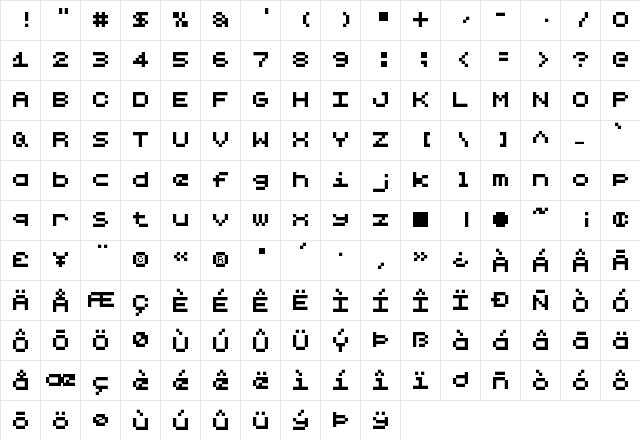
Lilliput Steps Regular
Design Context for Lilliput Steps Typeface
Lilliput Steps is a composed and adaptable typeface that performs quietly and consistently across a wide range of design contexts.
Pro Tip: Use Lilliput Steps in both headline and body roles to test its range before committing to a single application.